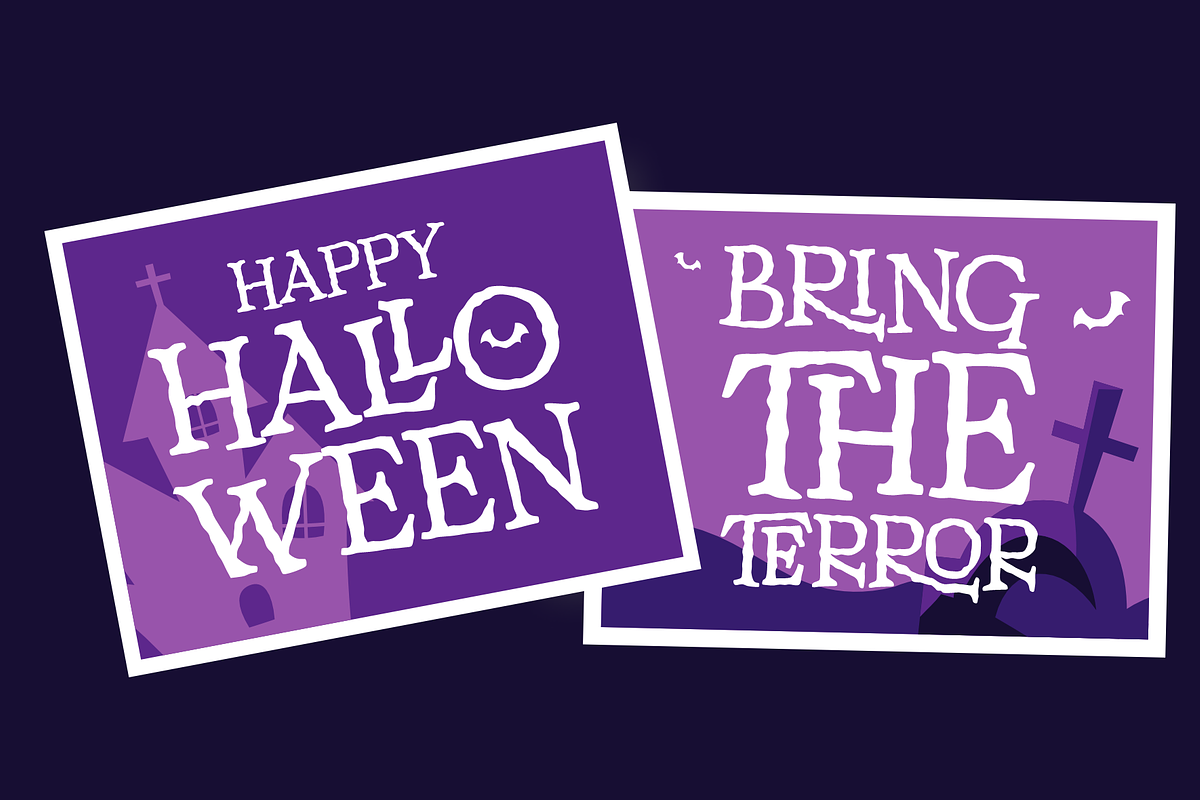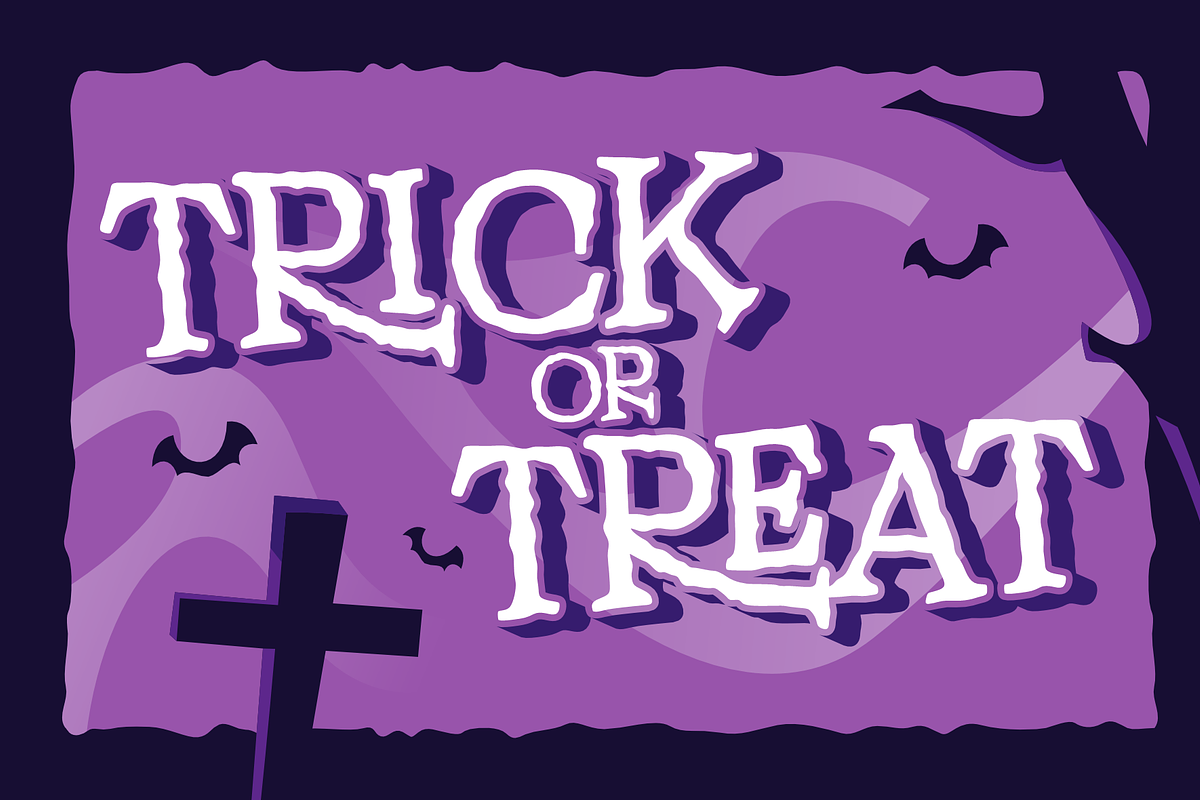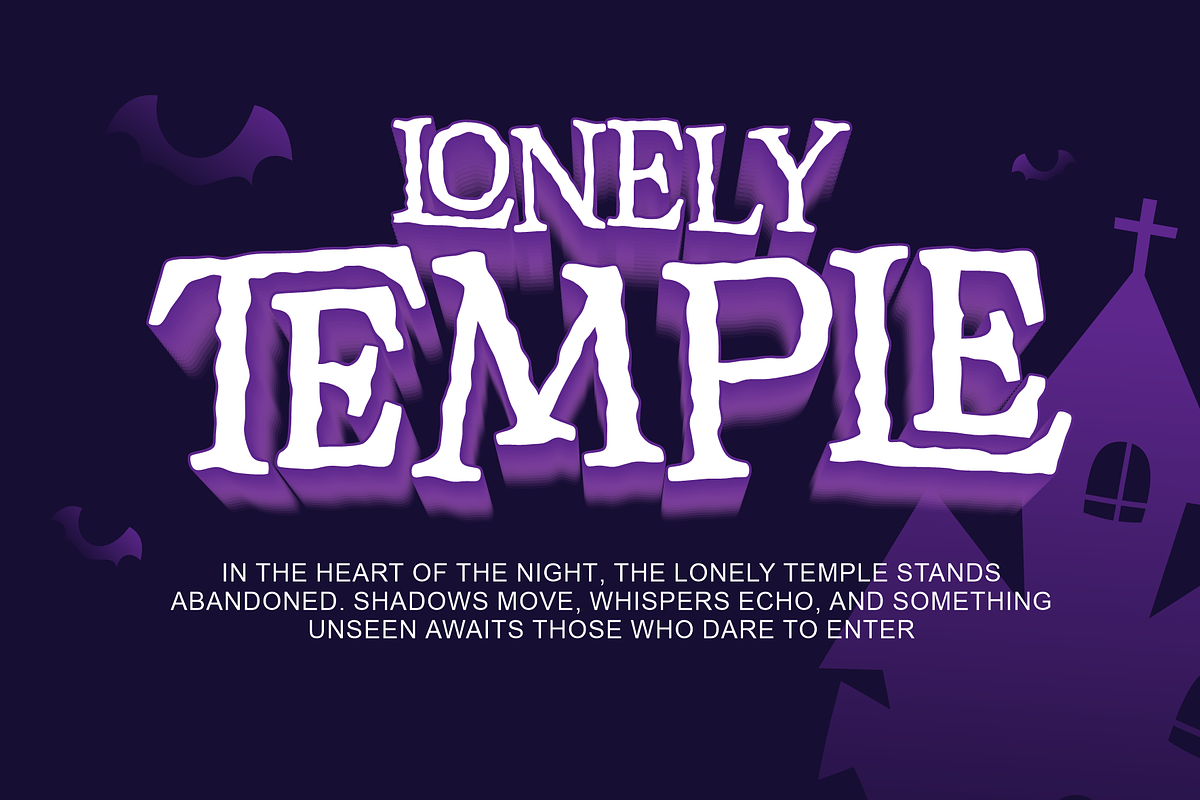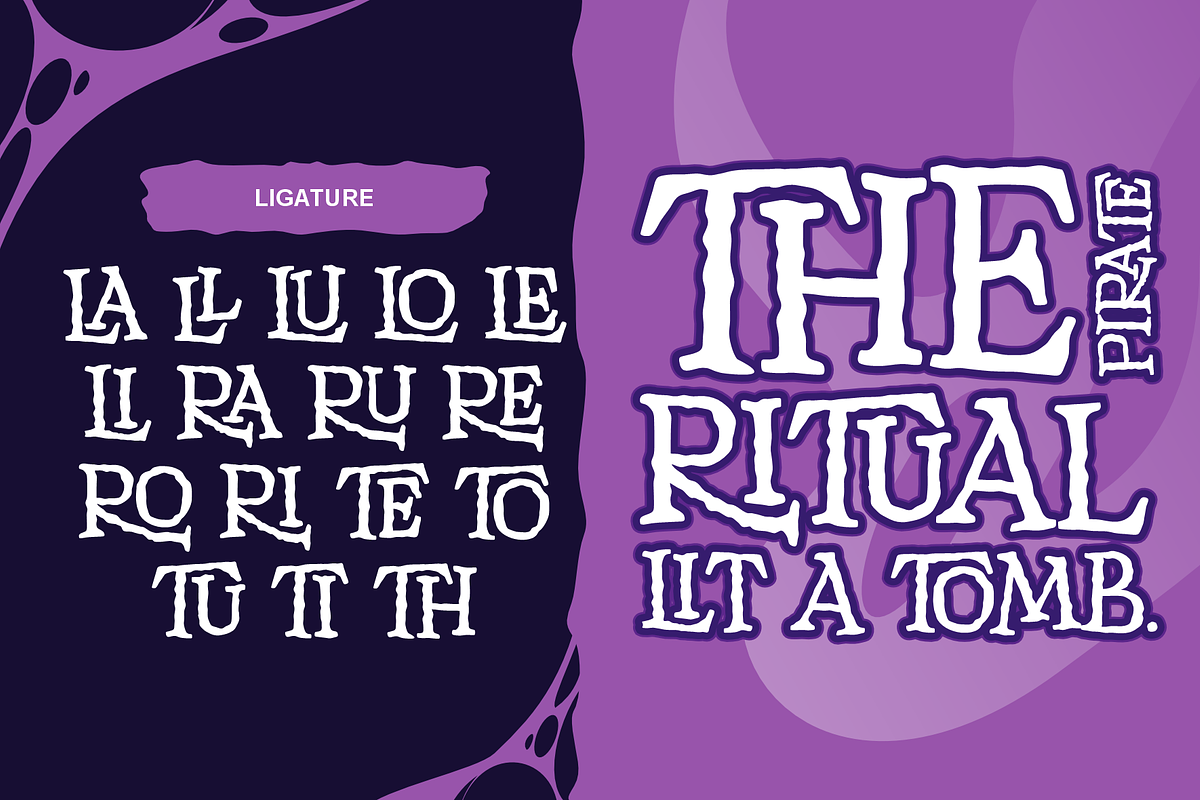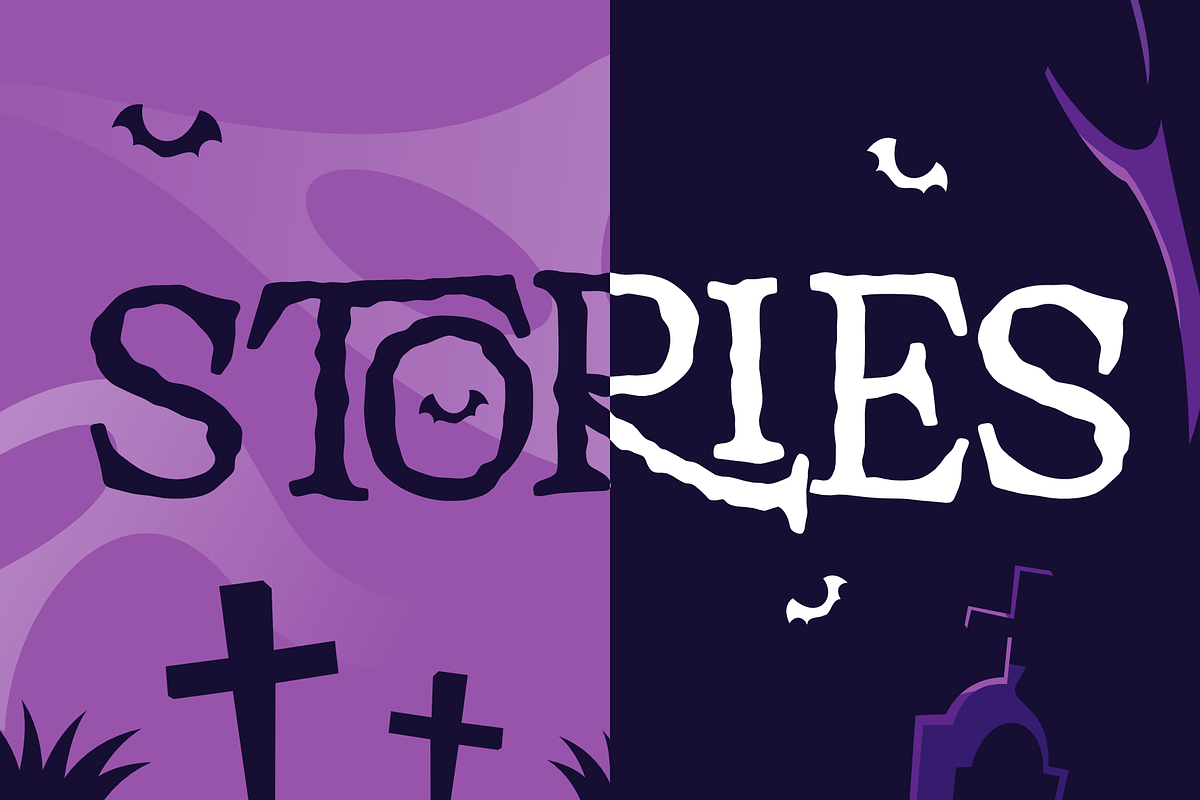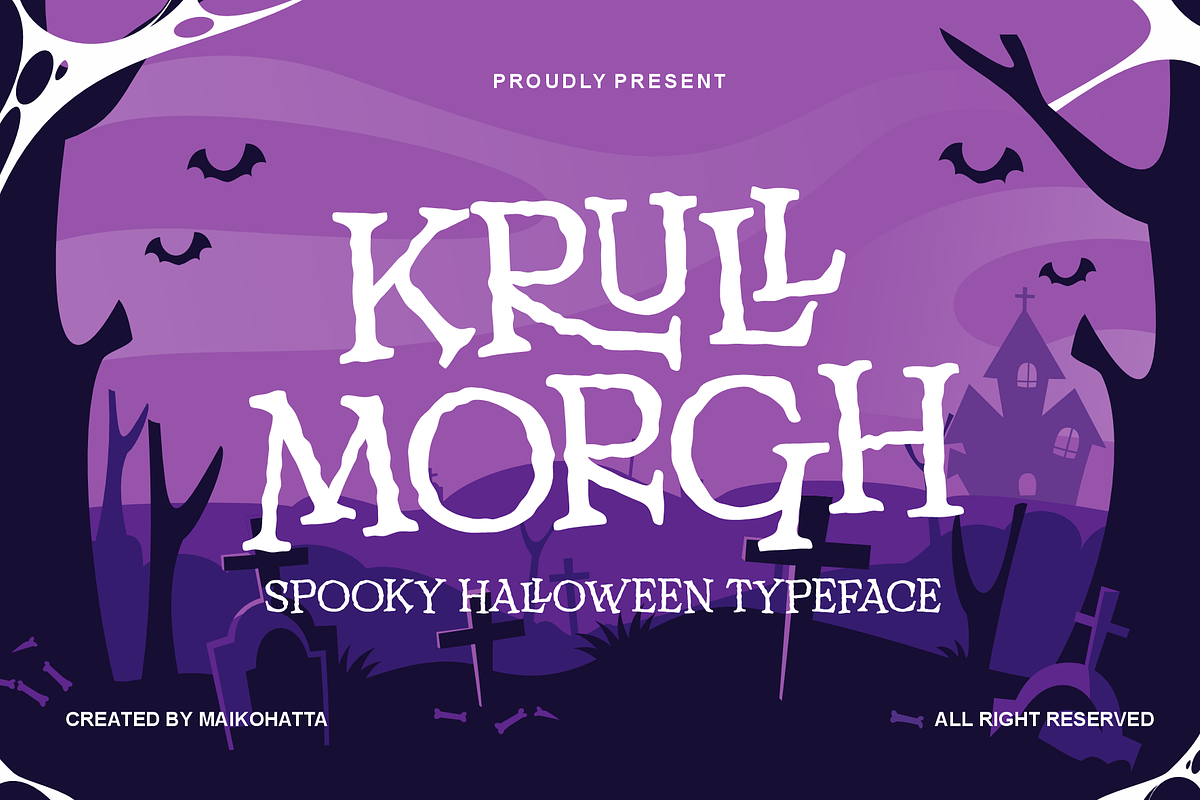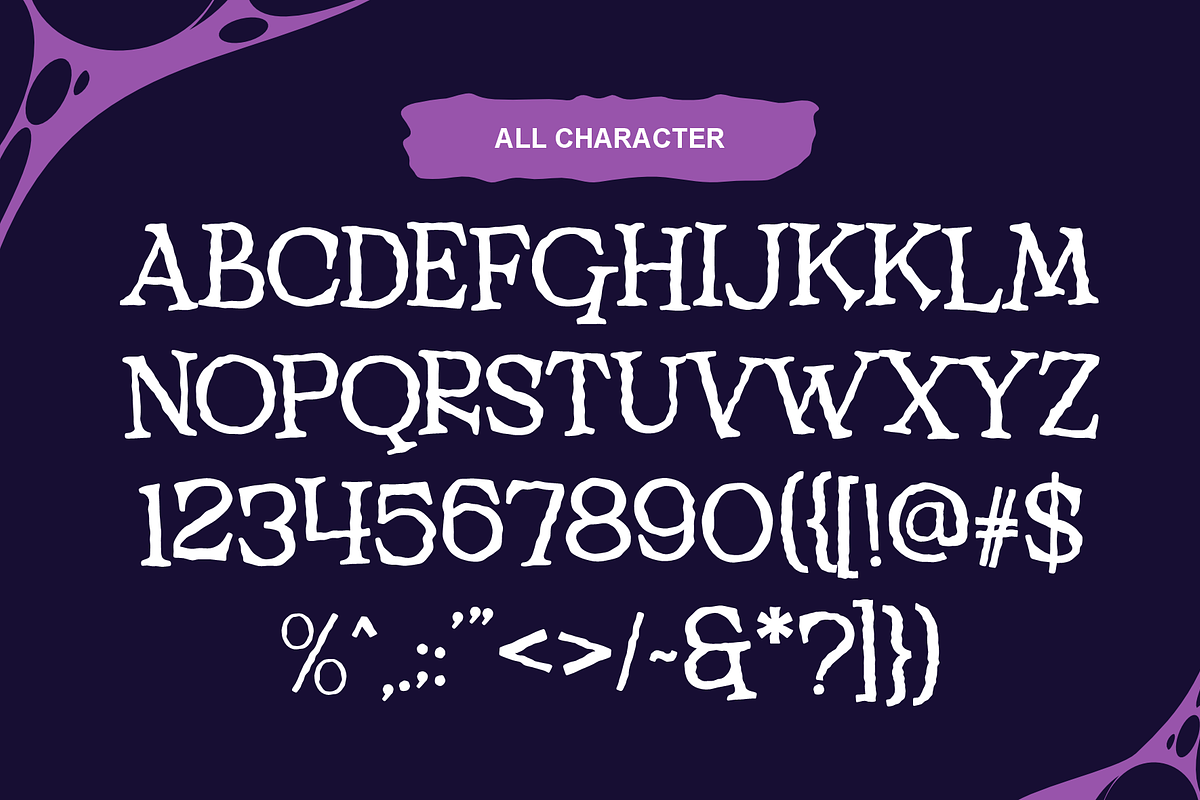
Krull Morgh – Spooky Halloween Typeface
Krull Morgh is a bold and eerie display font crafted to capture the spirit of Halloween. With its jagged edges, uneven strokes, and bone-like details, this typeface evokes a chilling and mysterious atmosphere perfect for horror themes. Its hand-drawn, slightly distorted look adds a creepy charm that stands out in spooky posters, haunted house flyers, trick-or-treat invitations, game titles, and eerie merchandise.
Designed to bring a playful yet haunting vibe, Krull Morgh combines gothic influence with cartoonish spookiness, making it ideal for both scary and fun Halloween projects.
✦ Font Features:
Uppercase & lowercase letters